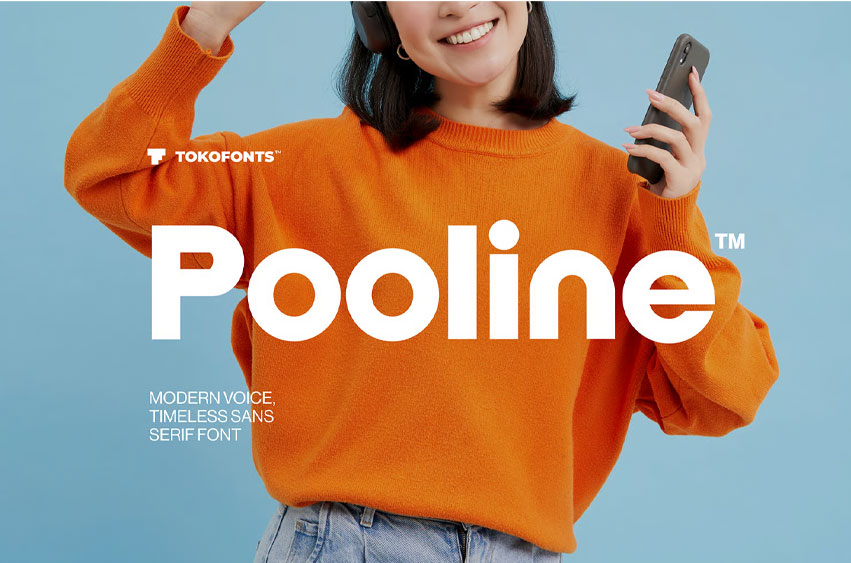
Pooline Font is a modern elegant sans serif typeface designed with a clean and minimal approach, making it perfect for contemporary branding and visual identity. Drawing inspiration from Helvetica, Montserrat, and Futura, it combines geometric balance with a smooth, friendly appearance. Its strong yet approachable letterforms make it ideal for logo design, corporate use, and fashion-related projects, while maintaining a timeless and versatile character.
With its refined structure and clear readability, Pooline font works beautifully across various applications, from display headlines to fonts kids concepts that require a playful yet polished touch. The font’s modern voice and minimal aesthetic ensure it stands out in both digital and print environments, offering flexibility for creative exploration without losing its elegant and professional appeal.